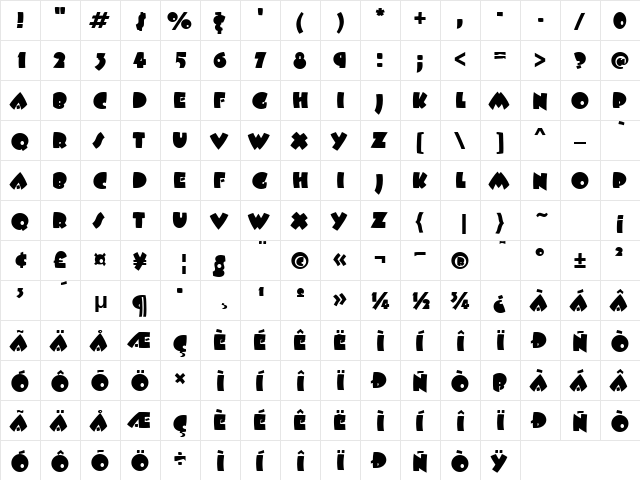
PT Lampoon Normal
Design Context for PT Lampoon Typeface
PT Lampoon is a composed and adaptable typeface that performs quietly and consistently across a wide range of design contexts.